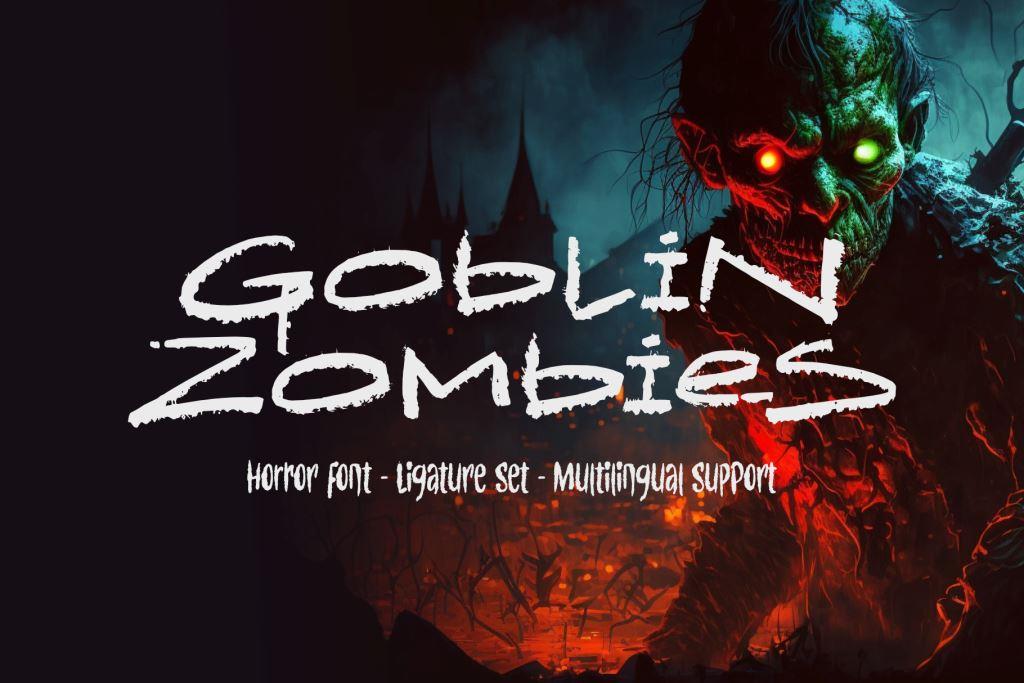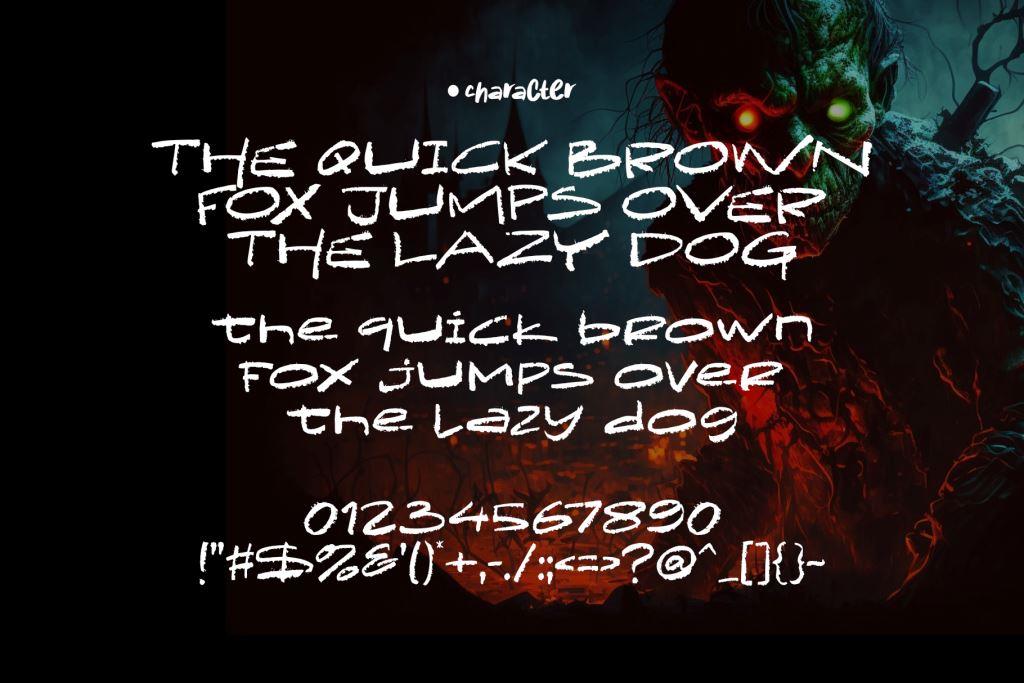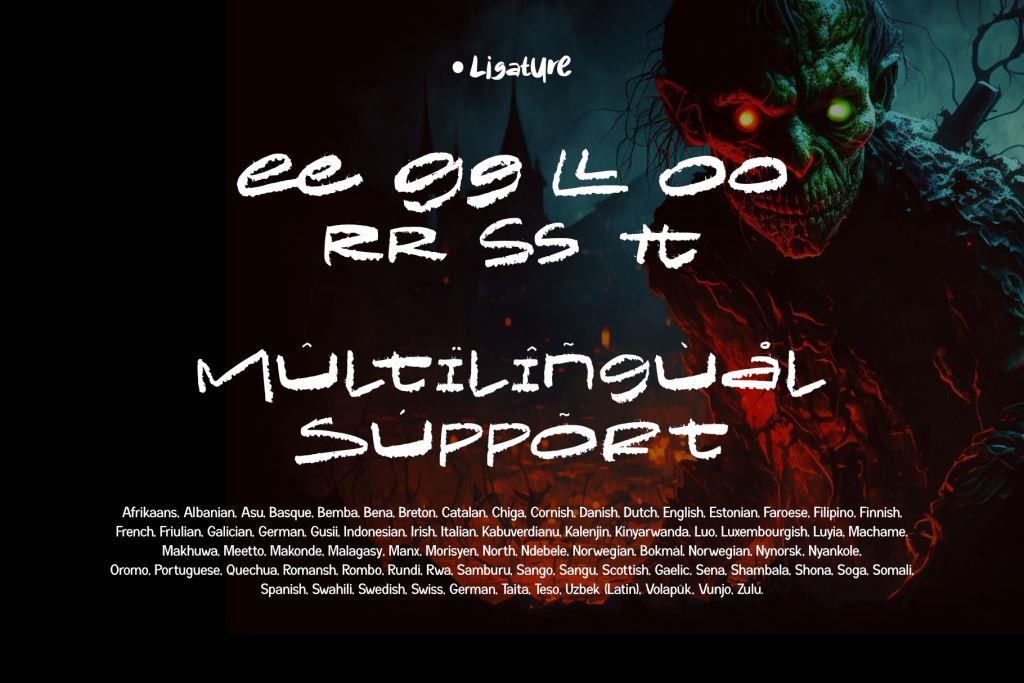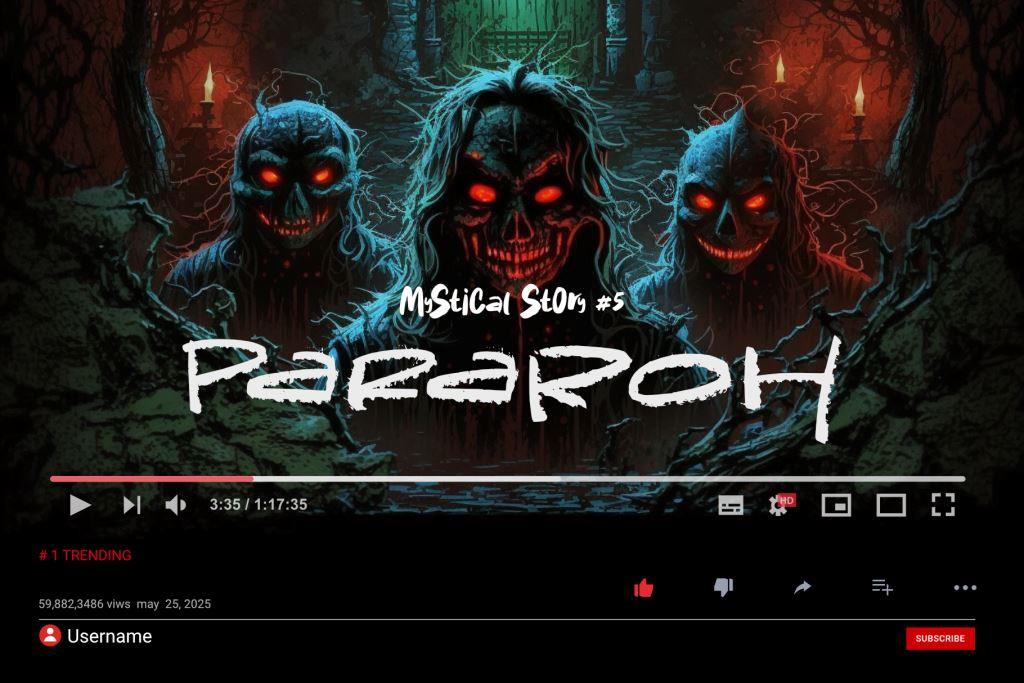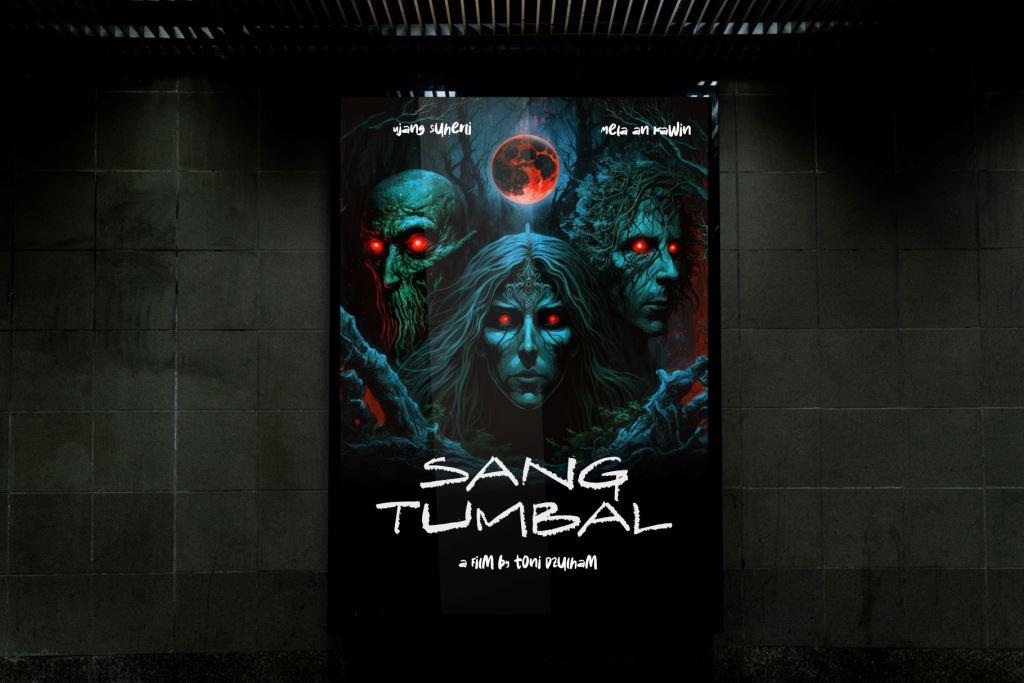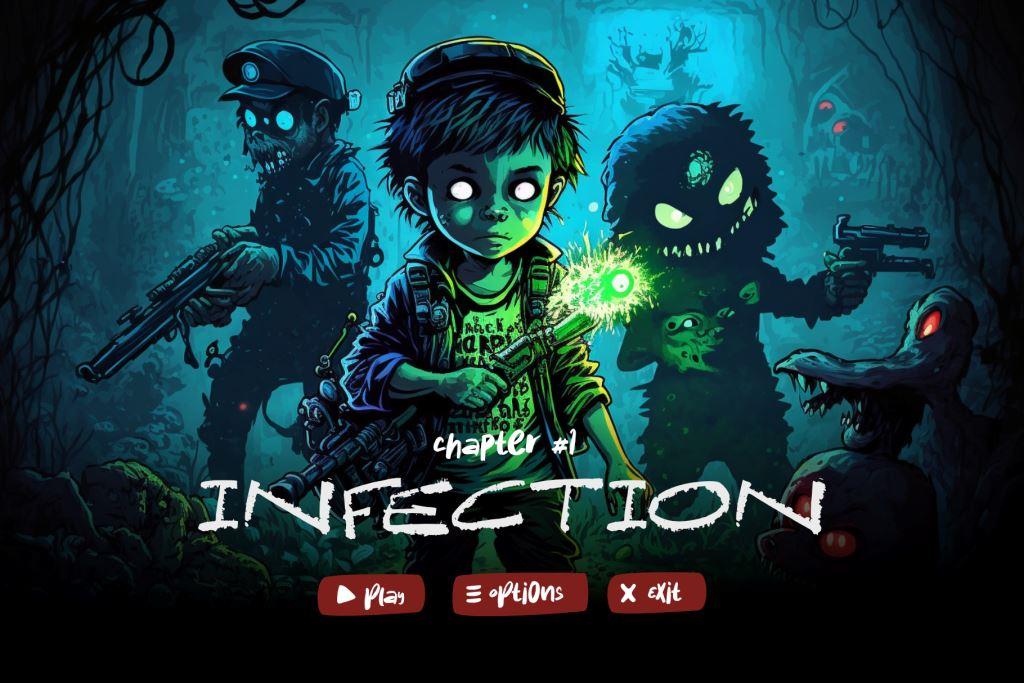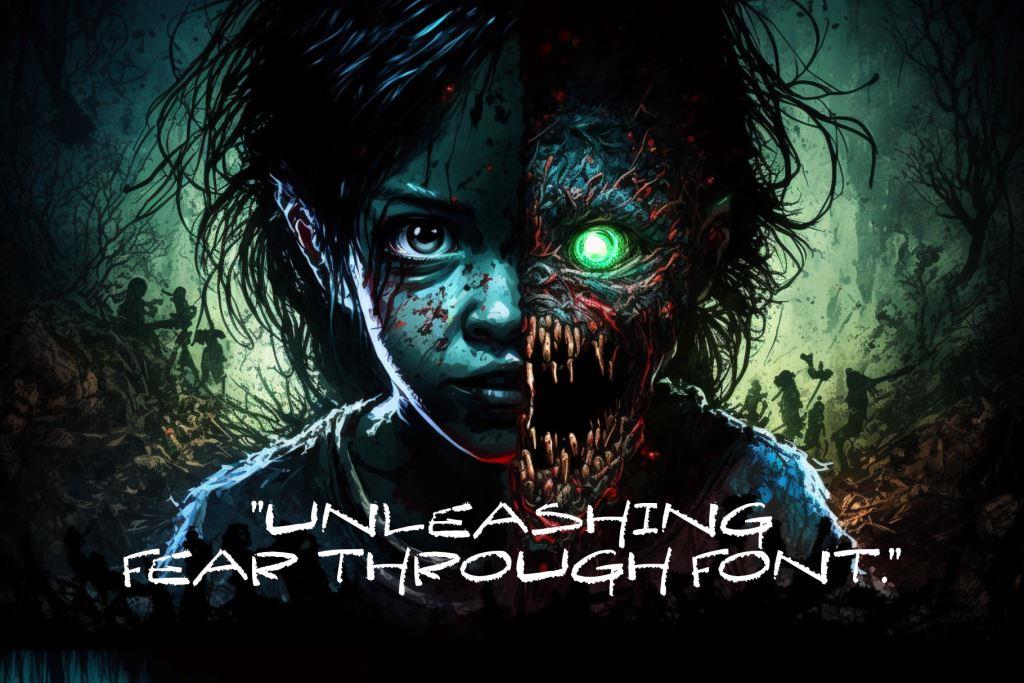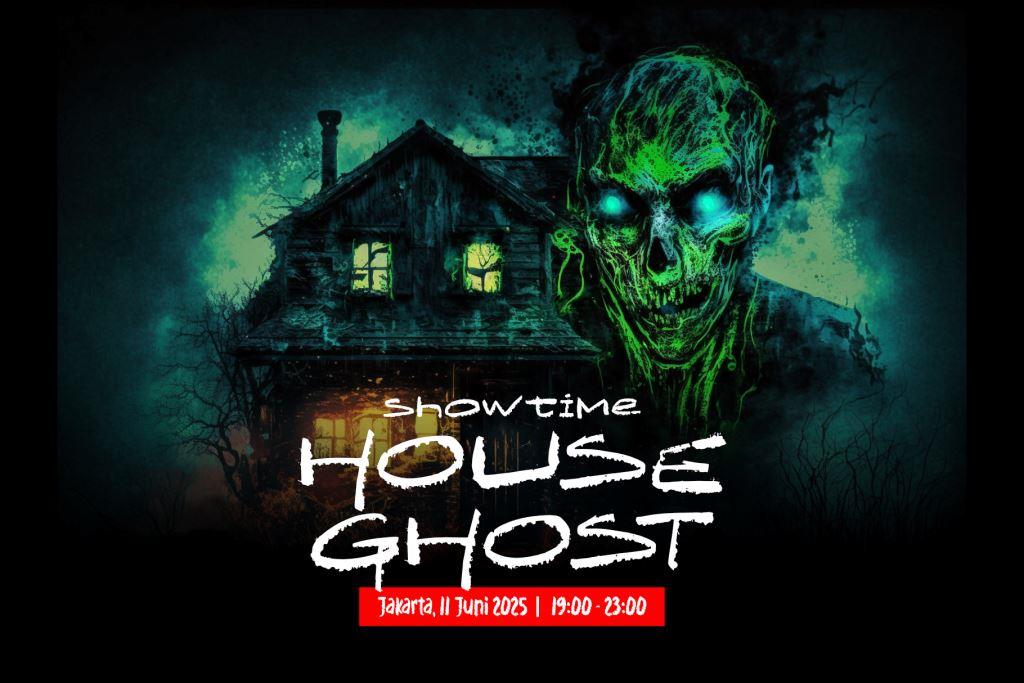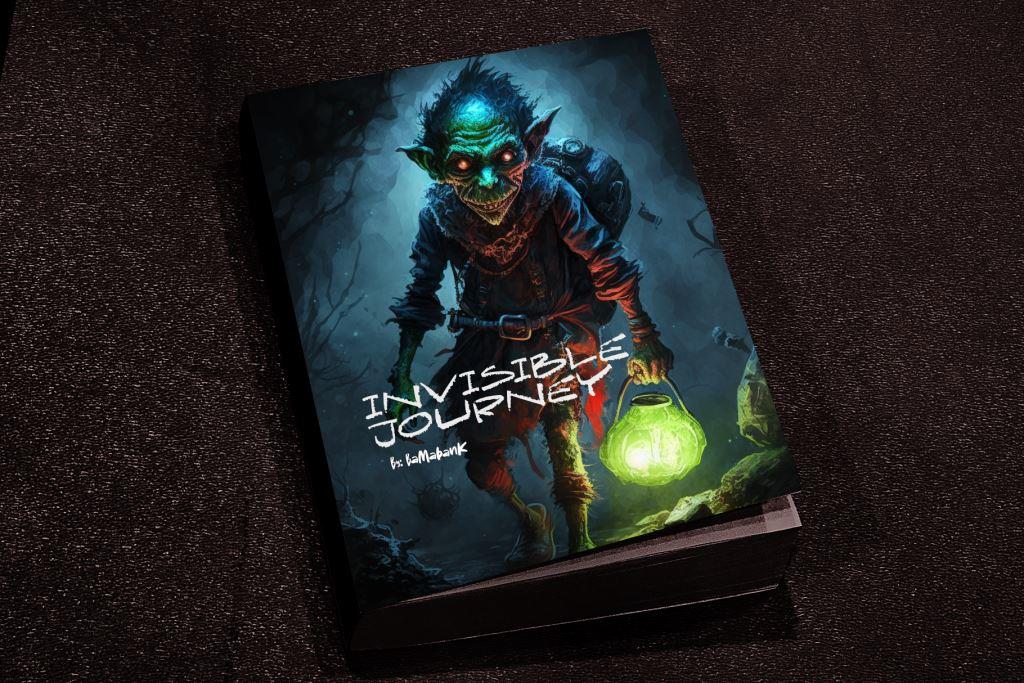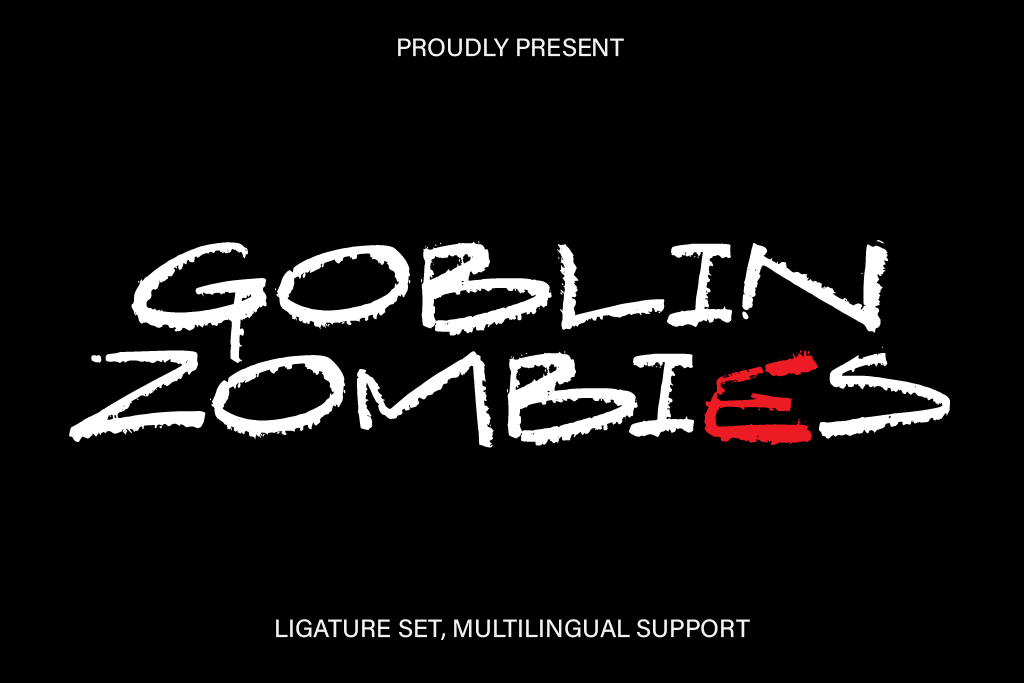
- Goblin Zombies
“Goblin Zombies” is a captivating horror font that embodies the eerie and macabre essence, perfect for designs that embrace the horror genre. This unique font combines the hand-drawn sketch aesthetics with a twisted and decaying style, creating an atmosphere that is both haunting and unsettling.
Each letter in the “Goblin Zombies” font appears as if it has been meticulously hand-drawn, featuring jagged edges, uneven strokes, and eerie detailing. The font’s design invokes a sense of decay and malevolence, reminiscent of the undead creatures lurking in the shadows.
Whether you’re working on a horror movie poster, a spine-chilling book cover, horrifying content, a terrifying game title, a haunted event, or any design that aims to evoke a sense of horror, “Goblin Zombies” is the perfect choice. Its ability to send shivers down the reader’s spine and invoke a feeling of unease makes it ideal for creating an unforgettable and fear-inducing experience.
“Goblin Zombies” is incredibly versatile and can be used effectively in various sizes and compositions. It lends itself well to both bold and attention-grabbing titles, as well as smaller text elements that require a touch of horror. The font supports a wide range of characters and punctuation marks, making it suitable for diverse languages and creative projects.
When you incorporate “Goblin Zombies” into your designs, you infuse them with a nightmarish and otherworldly quality. It invites viewers to delve into the darkness and experience the thrill of the horror genre. Unleash the undead and let “Goblin Zombies” breathe life (or death) into your chilling designs.
+ Ligature
+ Multilingual Accent